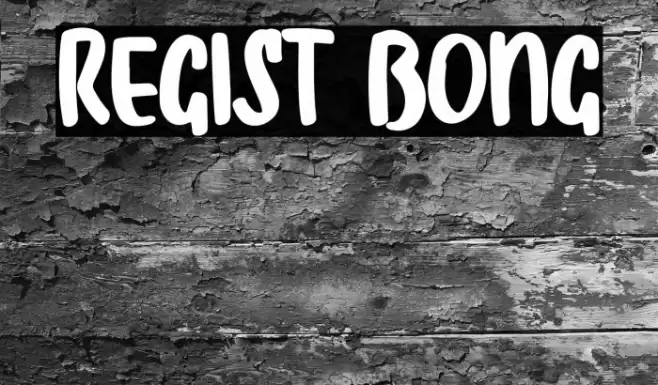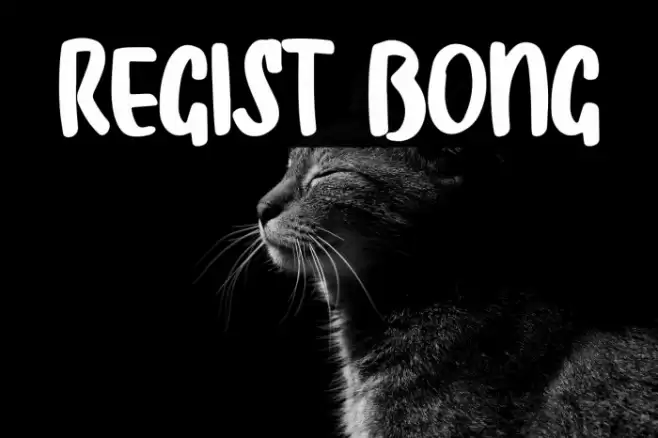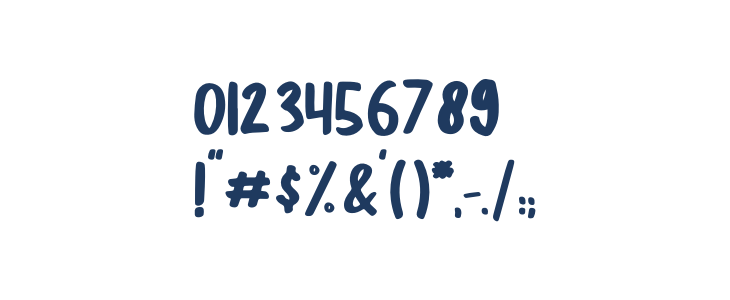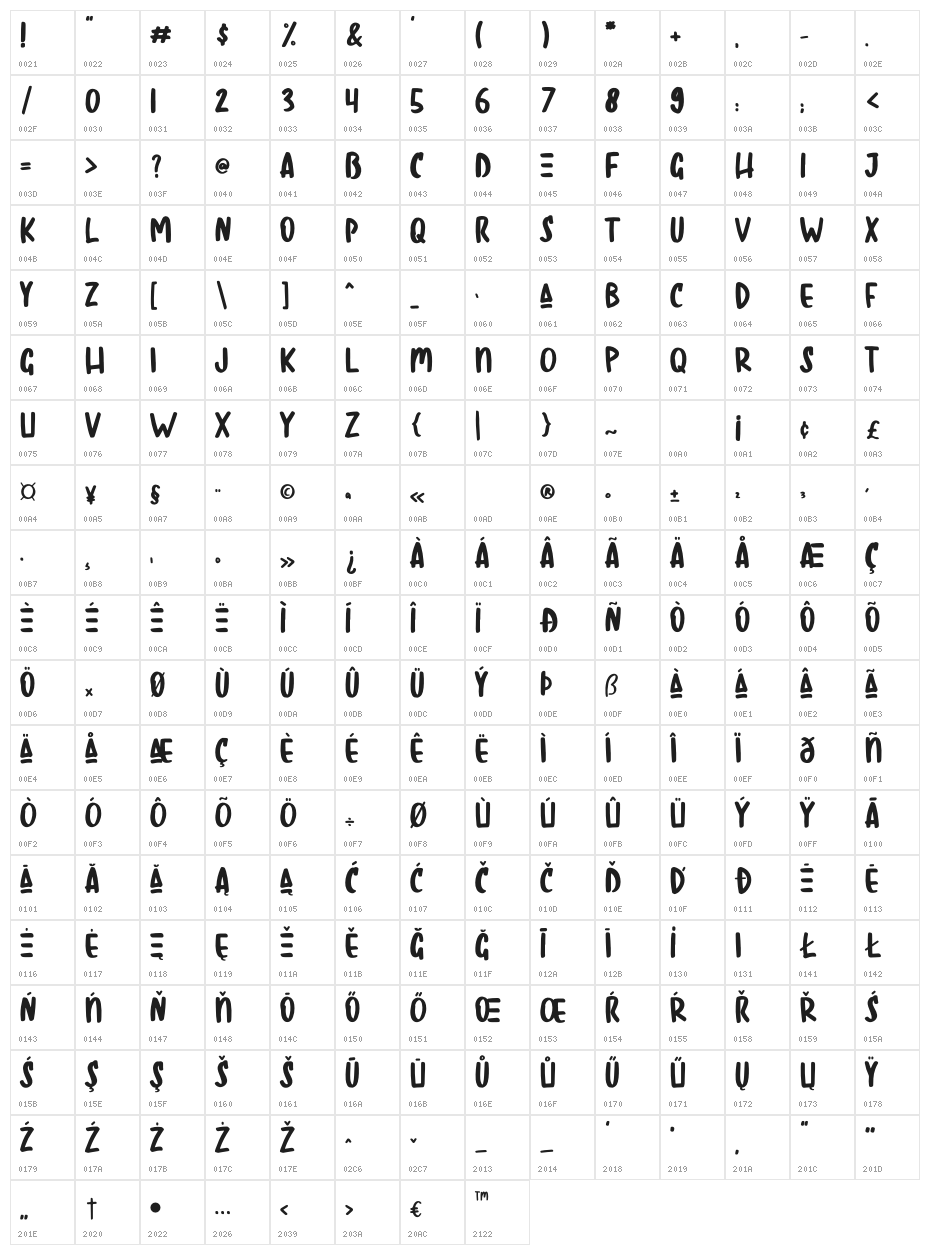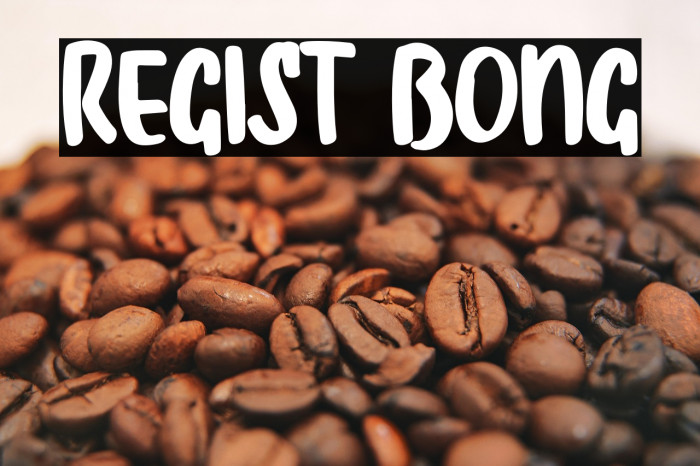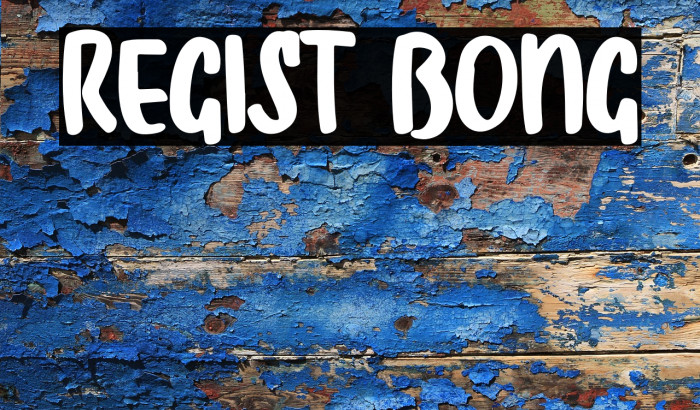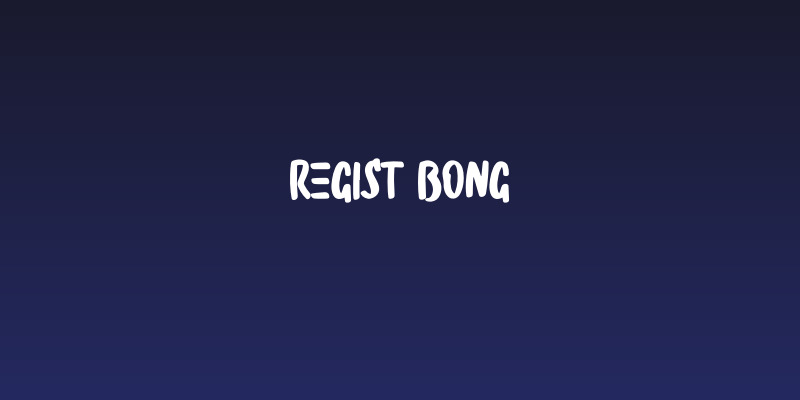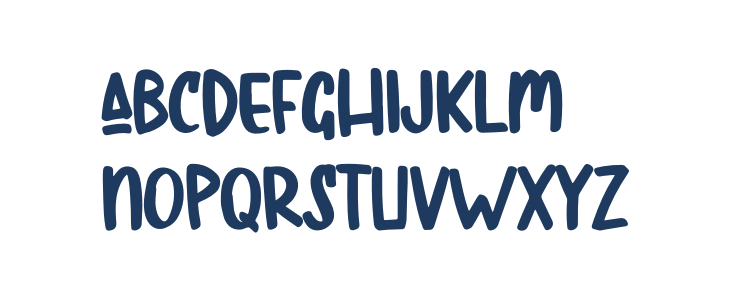
Regist Bong Font
Regist Bong Description
This font features a bold and playful design with rounded edges and a hand-drawn aesthetic. The characters are thick and uniform, giving a sense of consistency and balance. The uppercase and lowercase letters maintain a cohesive style, while the numerals and special characters complement the overall look. The font's informal and friendly appearance makes it suitable for creative and casual projects. Its boldness ensures readability, even at smaller sizes, while the unique style adds a touch of personality to any design.
A bold, playful font with a hand-drawn, rounded style from Regular fonts.
- Proposed Projects: Ideal for children's books, playful branding, posters, and social media graphics.
- Overall Style: Playful